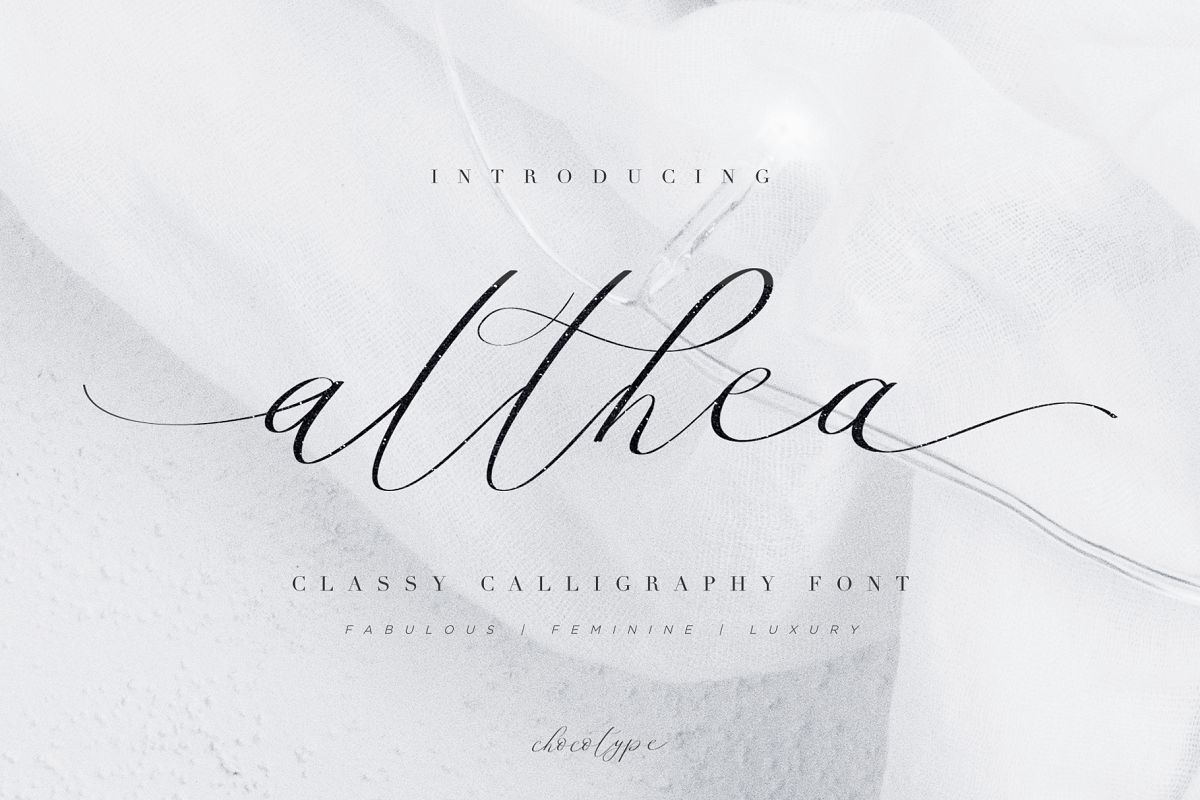
Althea Script
Introducing Althea Script! a luxury and magnificent calligraphy font! with extra swashes to make it more like hadwritten :)
Althea is a handmade typeface, with cute character and a very bouncy baseline :).
Althea Script has a large variety of alternate characters ,allowing you to make each word look completely unique to the next! Ligatures are also included.
It has multilingual support with accented characters for international users.